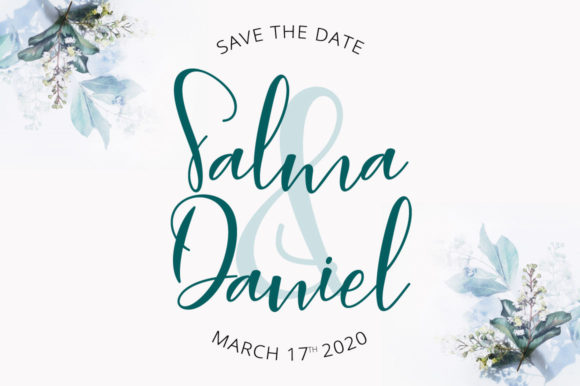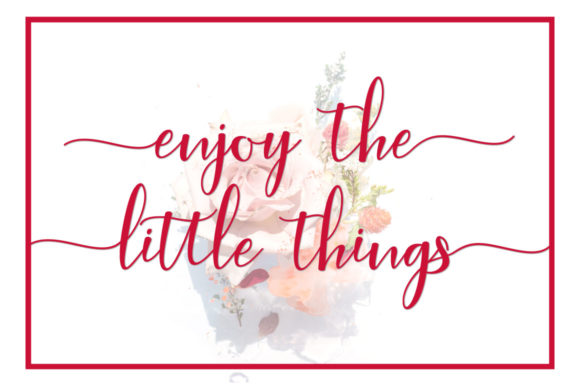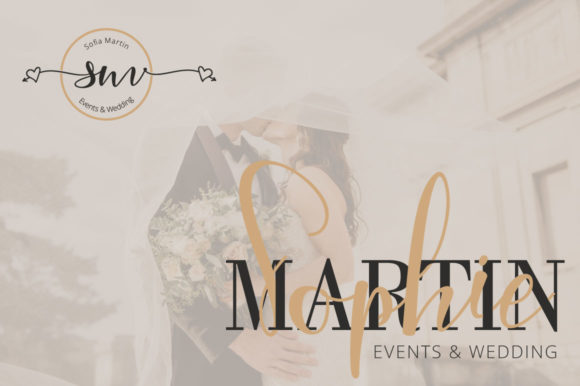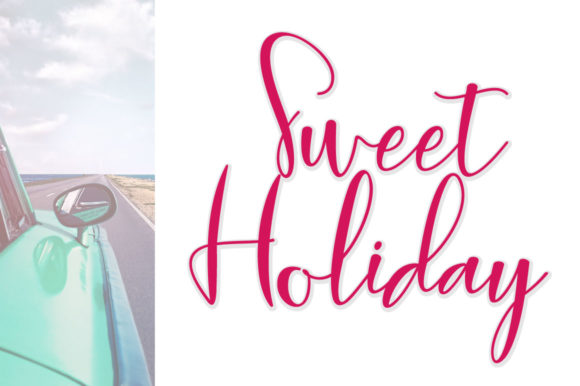
Introduction to Gebby Font
Gebby is a beautiful light handwritten font with a unique feel and a stunning impact.
Key Features of Gebby Font
Why Choose Gebby Font?
Gebby Font offers exceptional quality and versatility, making it a valuable addition to your design toolkit. Whether you’re creating for personal projects or commercial use, Gebby Font delivers professional results.